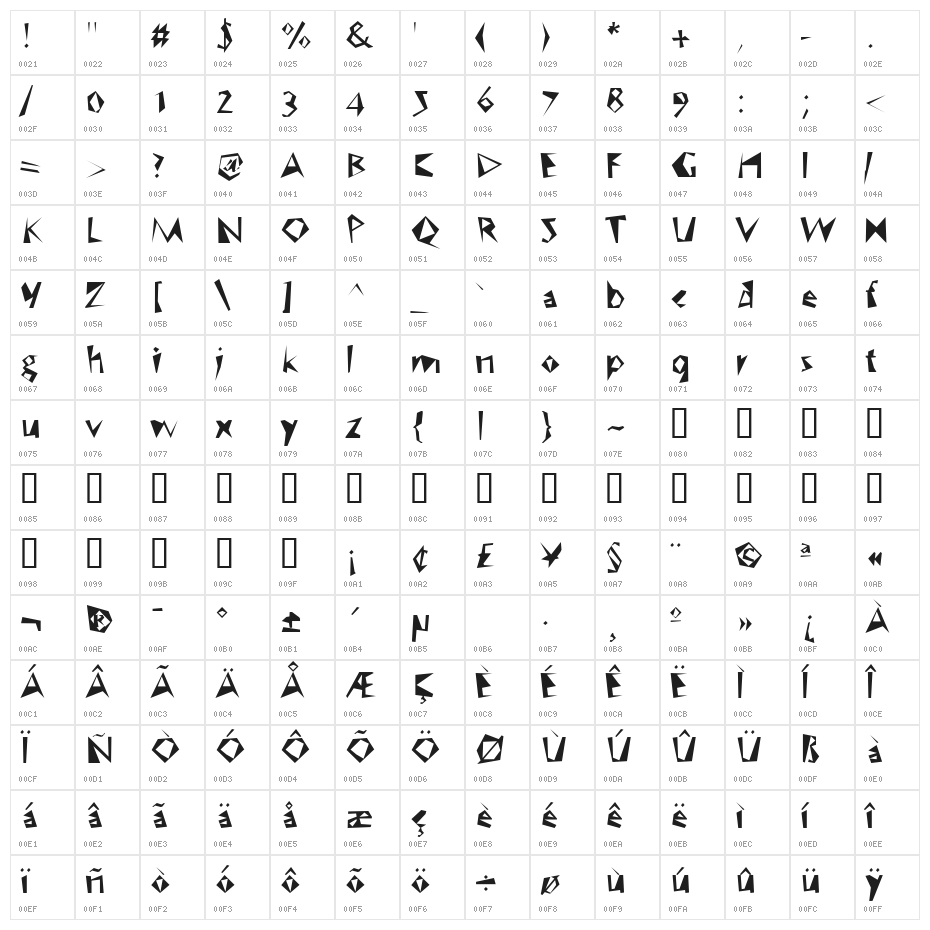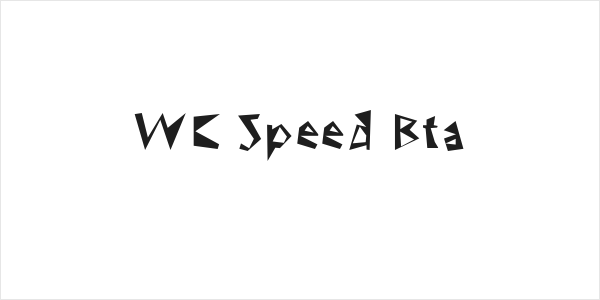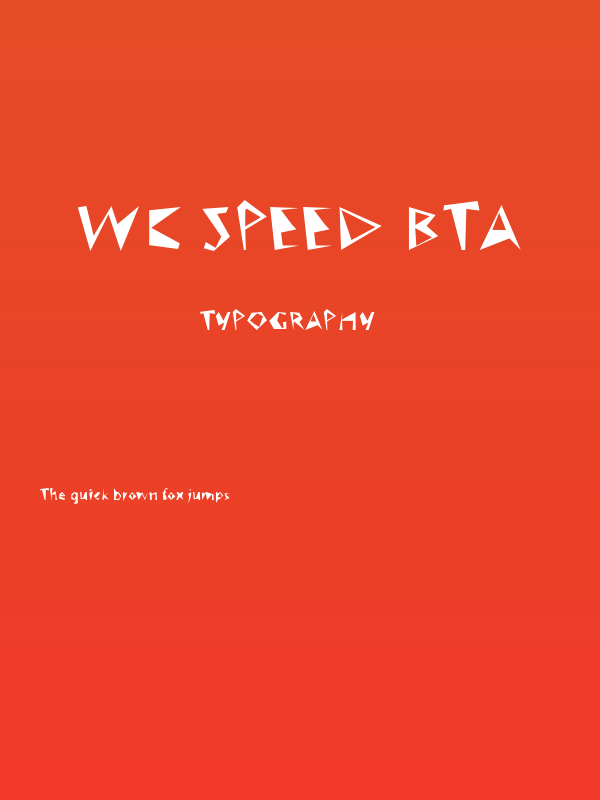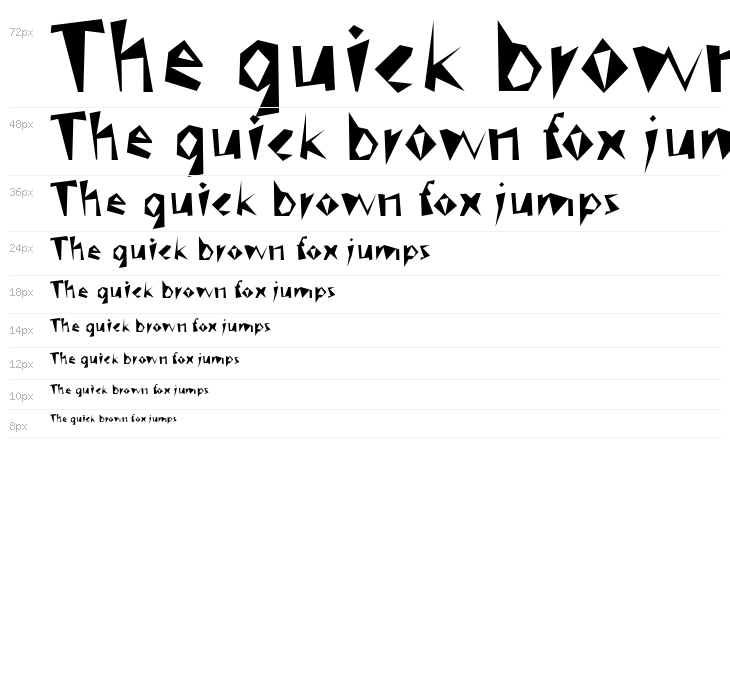
WC Speed Bta Font
WC Speed Bta Description
This font features a dynamic and edgy design, characterized by sharp angles and irregular shapes that convey a sense of movement and energy. The uppercase and lowercase letters maintain a consistent jagged style, creating a cohesive yet chaotic appearance. Numbers and special characters follow the same angular theme, enhancing the overall impact. The font's unique structure makes it stand out, ideal for projects that require a bold and unconventional look. Its striking appearance is perfect for grabbing attention and making a statement.
| Proposed Projects | Ideal for music album covers, skateboarding brands, extreme sports events, and edgy poster designs. |